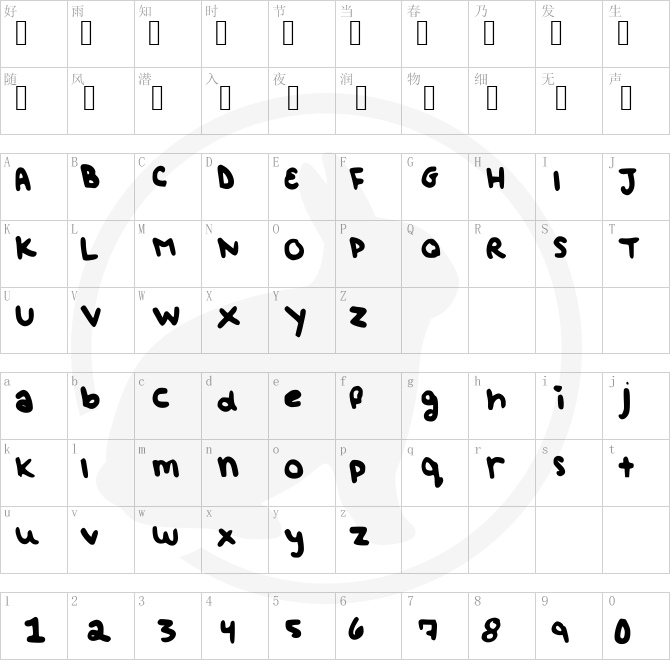
- Font Name:baby dont worry bout it!
baby-dont-worry-bout-it!.ttf is a very beautiful artistic font, baby-dont-worry-bout-it!.ttf is widely used in the design and printing of various books and pictures,baby-dont-worry-bout-it!.ttf has a strong visual impact,baby-dont-worry-bout-it!.ttf is a commonly used font in newspapers, magazines and books, and is used in posters, e-commerce Poster design, store design, logo design, font design and other fields.baby-dont-worry-bout-it!.